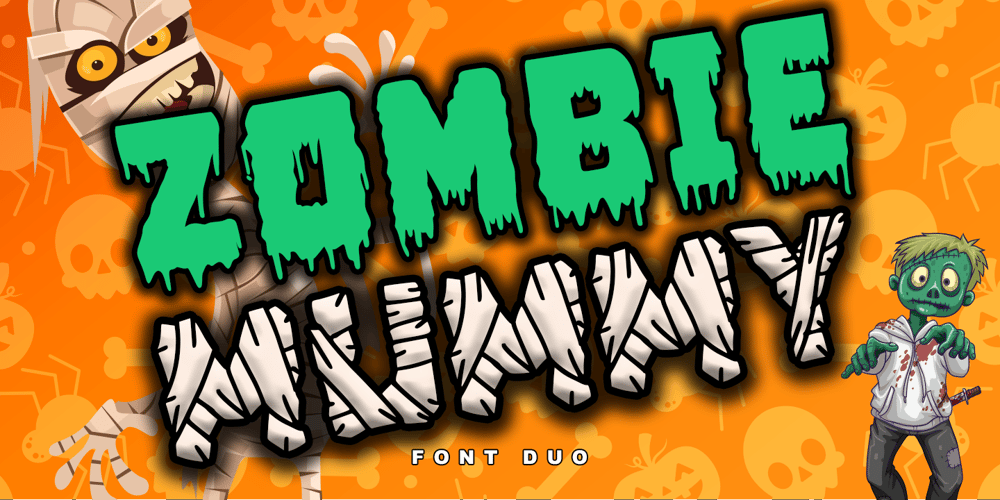
Zombie Mummy Font Family was designed by Thomas Aradea and published by Letterara. Zombie Mummy contains 2 styles and family package options. Zombie Mummy is a bold, quirky, and incredibly spooky display font. Add this font to your favorite Halloween-themed ideas and notice how it makes them come alive! This font is PUA encoded which means you can access all of the glyphs.